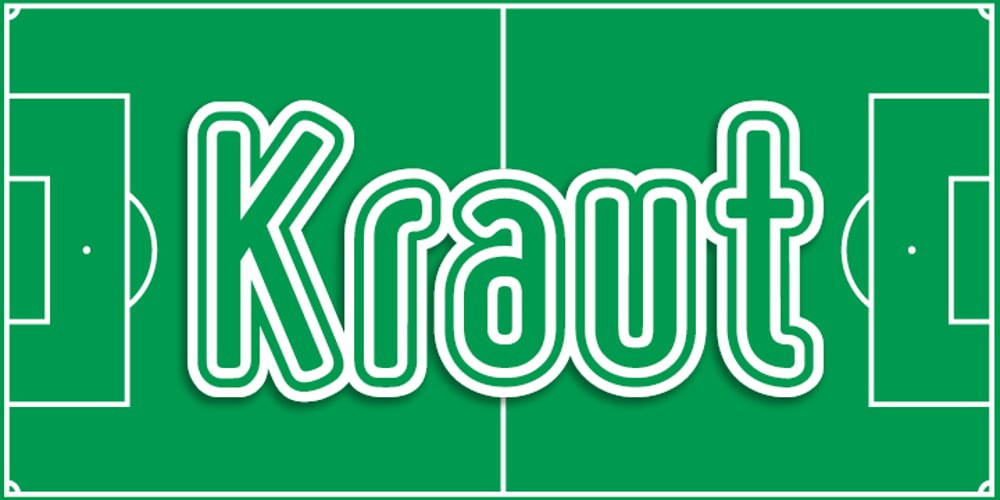
Kraut Font Family was designed by Henning Brehm and published by design-tourist. Kraut contains 1 styles and family package options. Kraut is a decorative headline font that can be used for posters, packaging, logos and on football jerseys. It contains all small and capital letters from the Latin and Cyrillic alphabet.